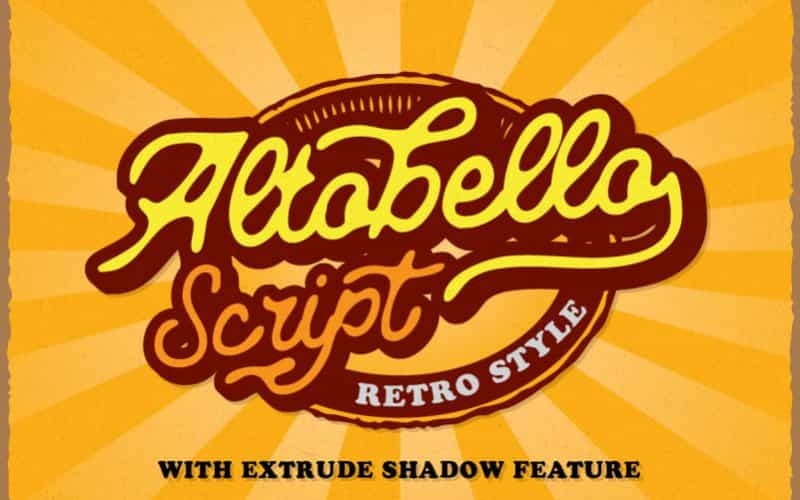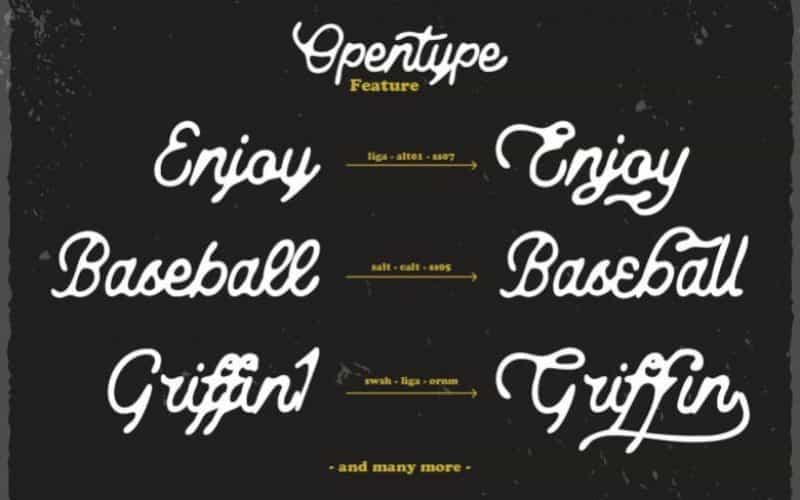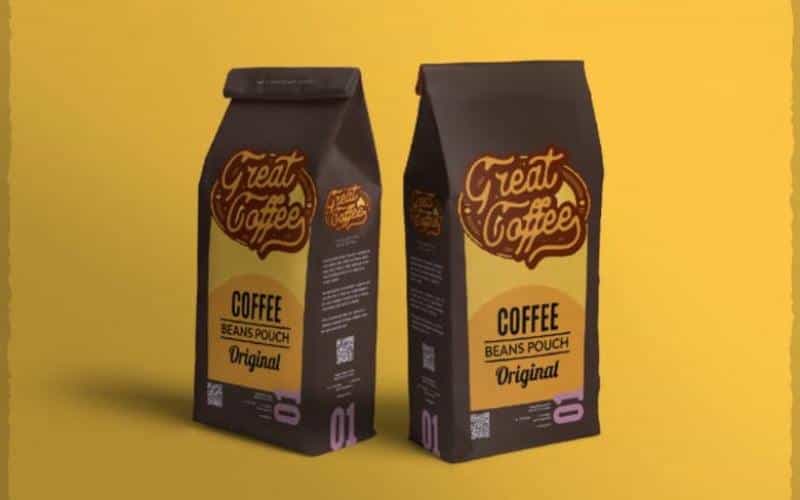
Altobello Script is a retro script with an extruded (shadow) feature that can save you time when you are creating a shadow effect. It can be used in different purposes: lettering and logotype, labels, t-shirts, product packaging, invitations, advertising, and any important text in design.